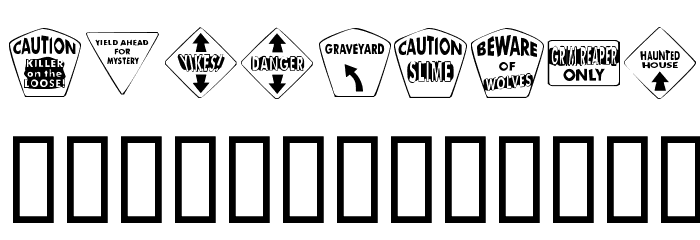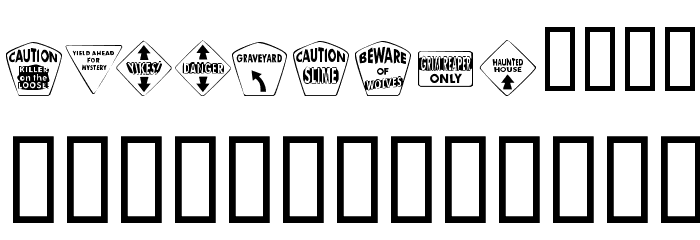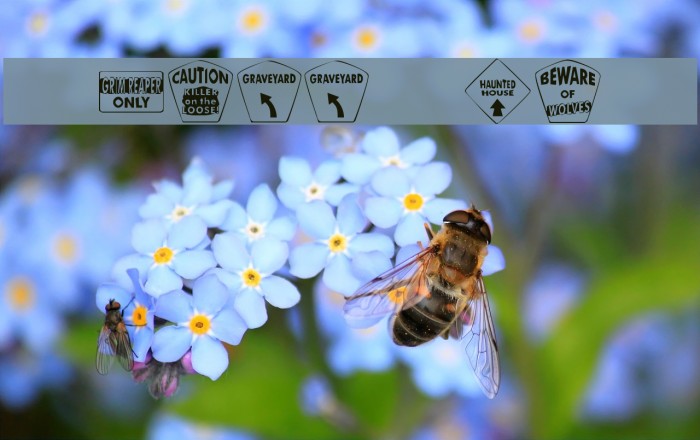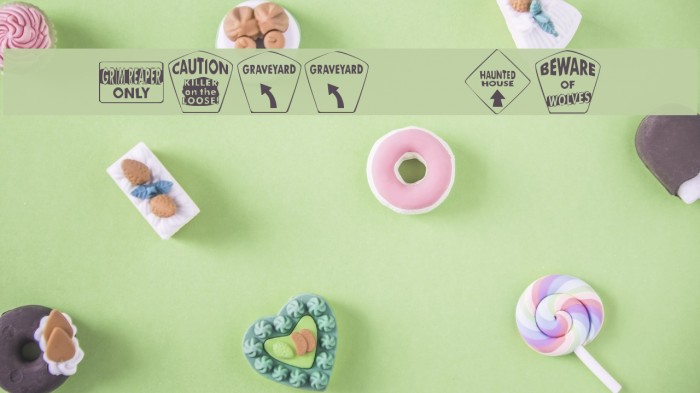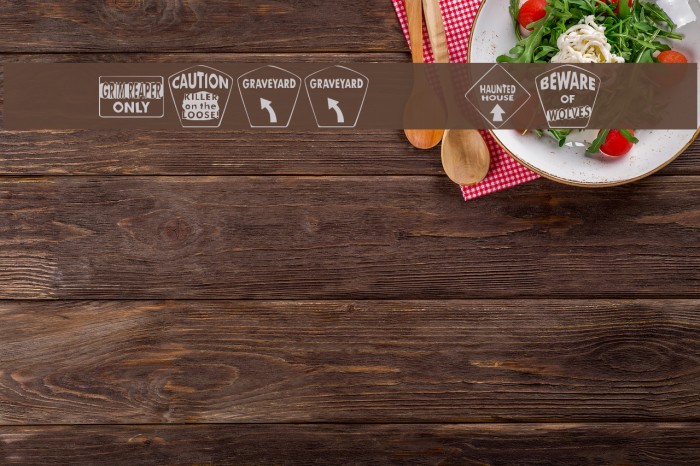
KR Halloween Signs Two Font
This font features a playful and spooky design, perfect for Halloween-themed projects. Each character is enclosed in a shape resembling a road sign, adding a unique and decorative touch. The letters are bold and capitalized, with a slightly distressed texture that enhances the eerie vibe. The font includes a variety of Halloween-related words and phrases, such as 'Caution', 'Danger', and 'Haunted House', each styled to resemble warning signs. The overall appearance is both fun and thematic, making it ideal for seasonal designs.
A decorative, Halloween-themed font with bold, sign-like characters.
- Proposed Projects: Ideal for Halloween party invitations, themed posters, haunted house signage, and spooky event flyers.